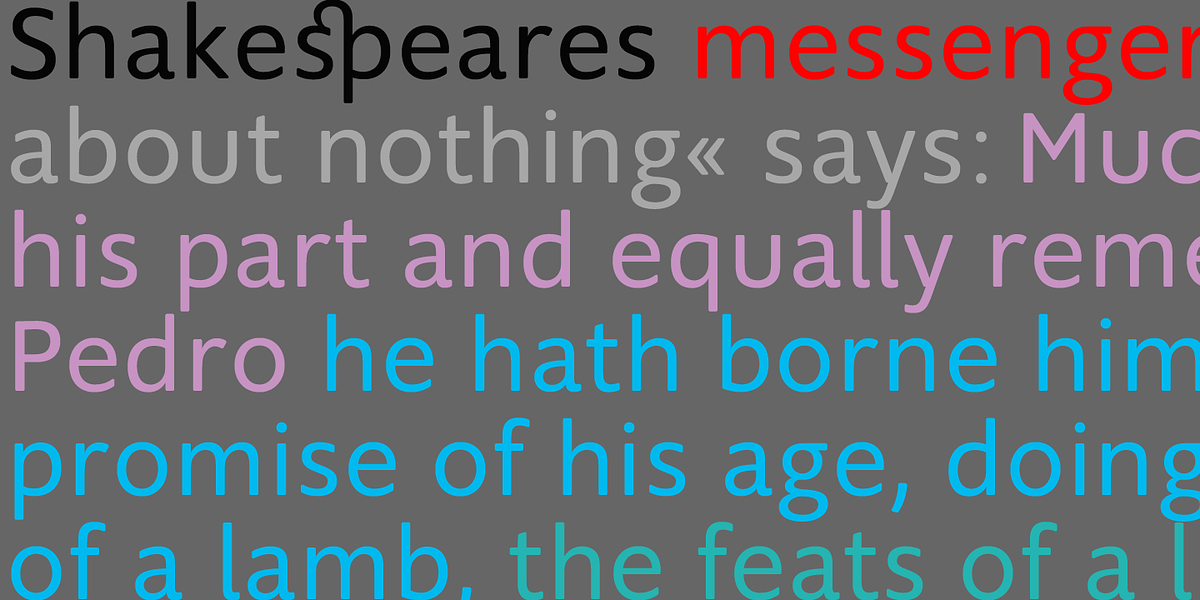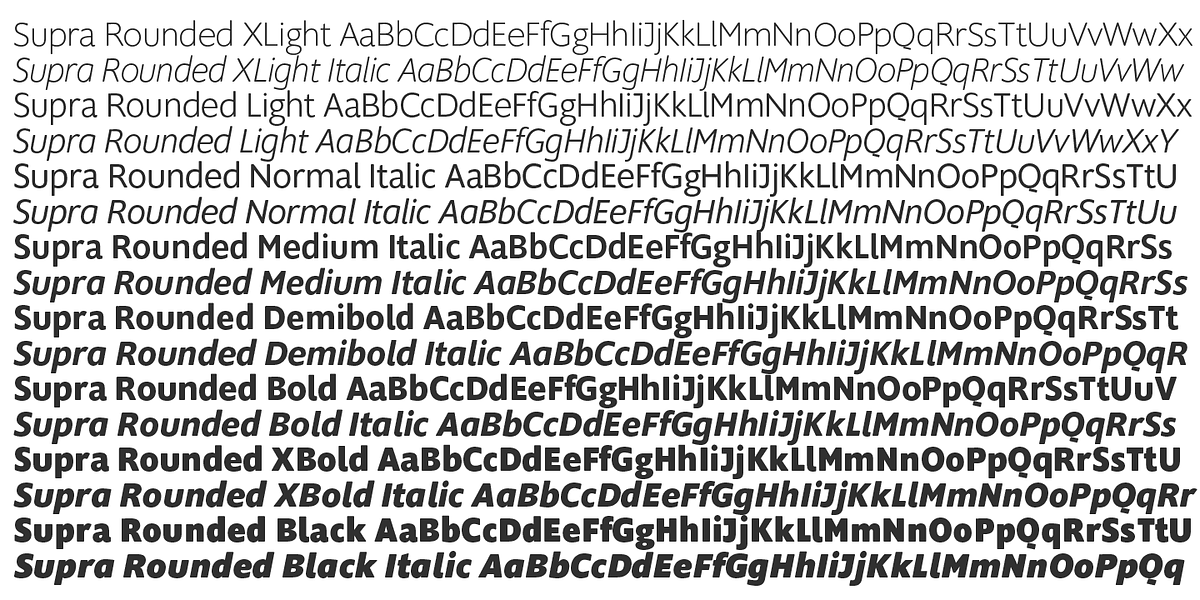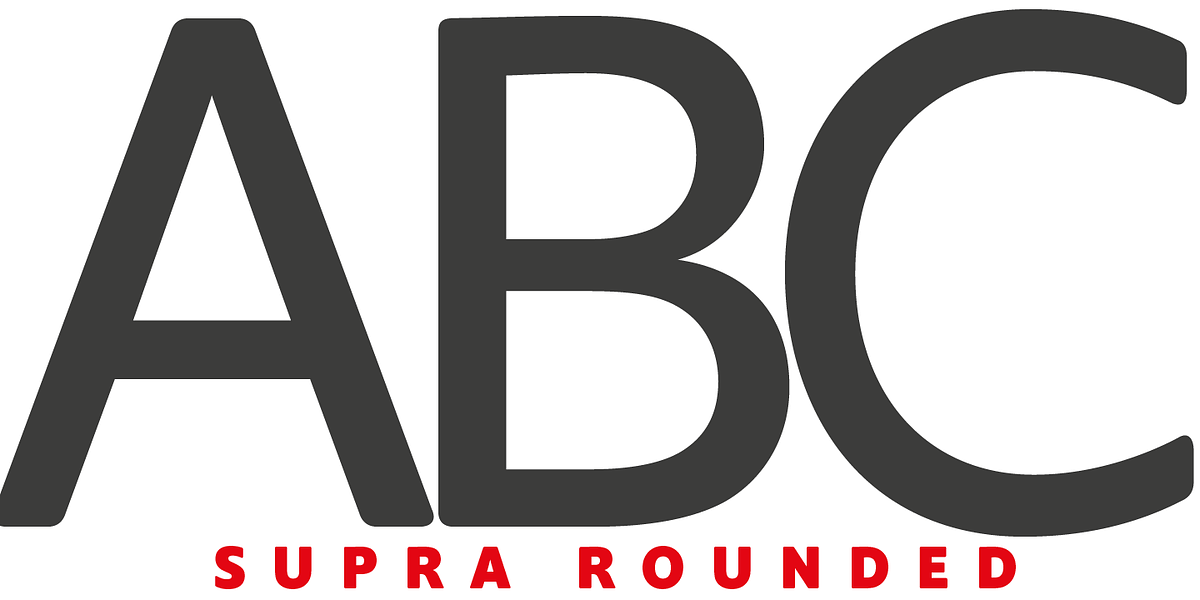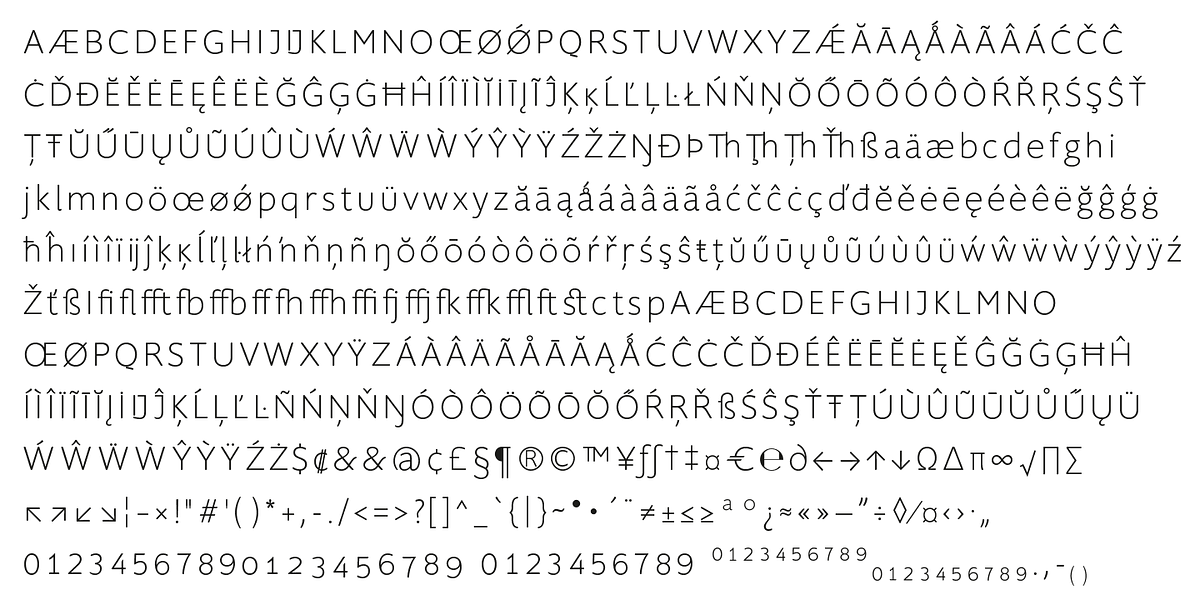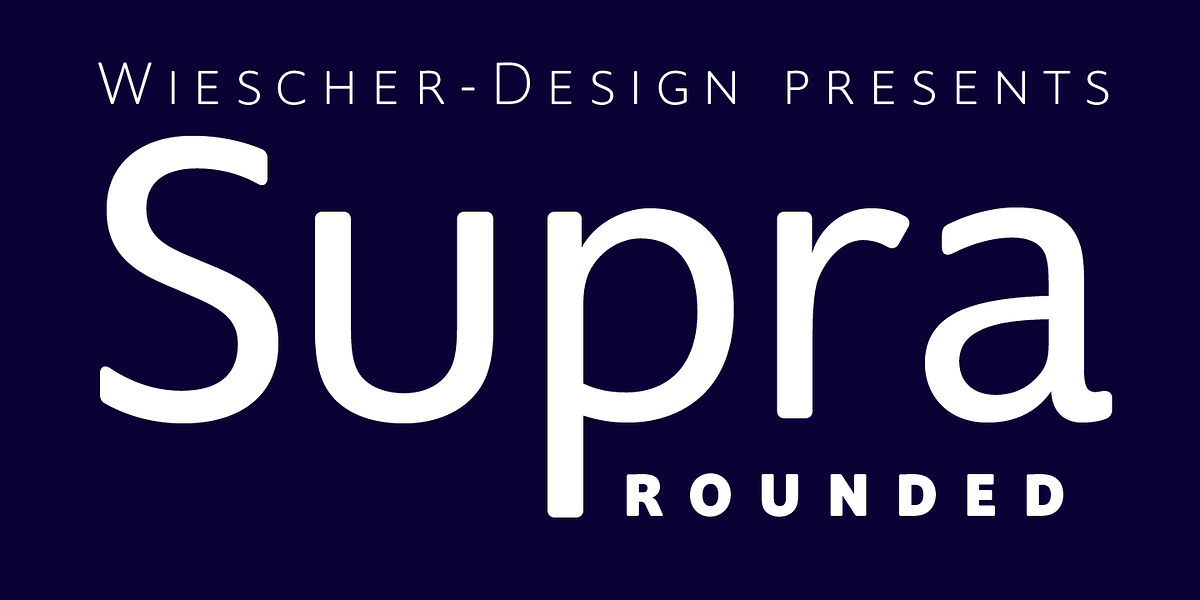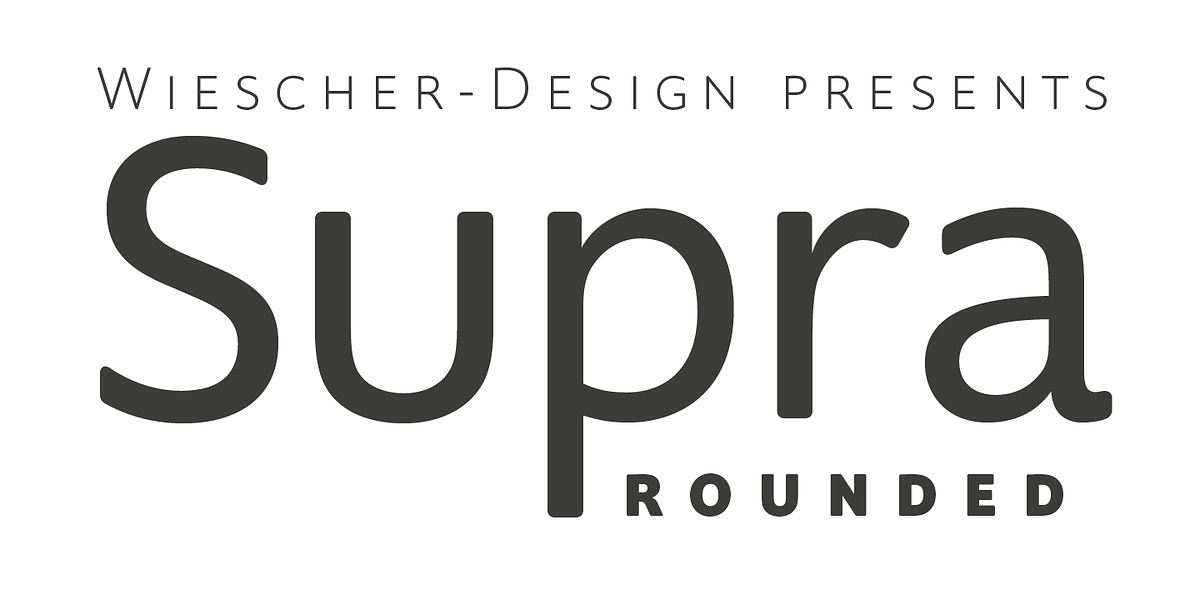
Supra Rounded
SUPRA-Rounded is a friendly and elegant grotesque sans serif typeface designed for professional typography. It features an extended character set of over 700 glyphs, extensive kerning, and support for more than 40 Central and Eastern European languages as well as many Western languages (excluding Greek and Cyrillic). The font includes ligatures, different figures, fractions, currency symbols, and small caps in all cuts.